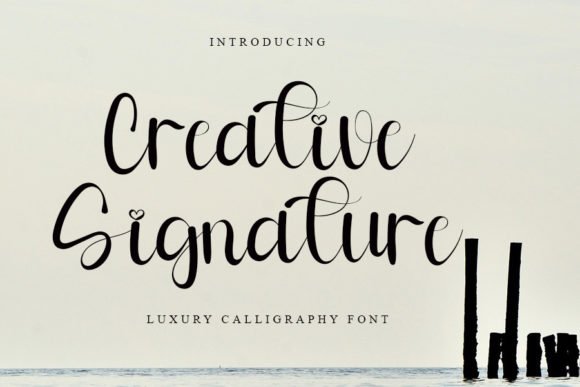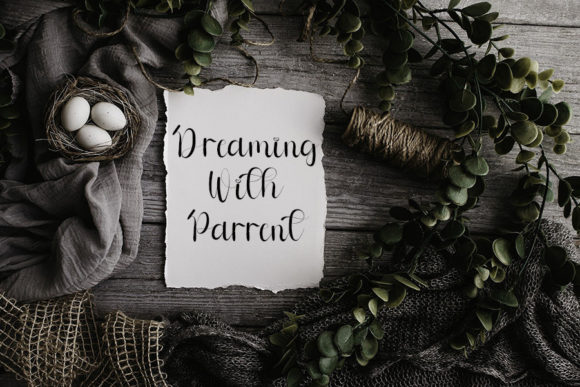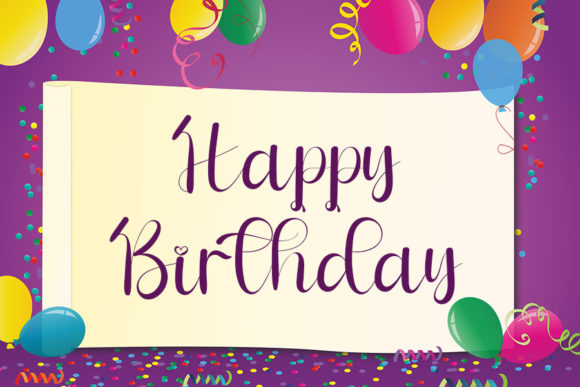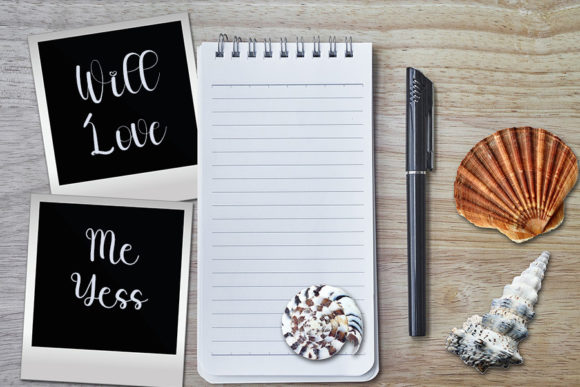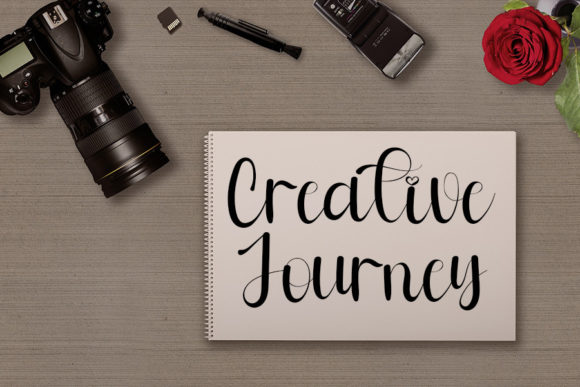
Unlock the Power of Personal Style with the Creative Signature Font
Have you ever found yourself staring at a blank page, struggling to bring your creative vision to life? The blank canvas can be daunting, but what if you had the perfect tool to help you express yourself? That’s where the Creative Signature Font comes in – a classic script font that’s about to become your new best friend.
This timeless font is designed to add a touch of elegance and sophistication to any project. Whether you’re a seasoned designer or just starting out, the Creative Signature Font is an incredible asset to have in your toolkit. Its versatility makes it perfect for branding, typography, and even handwritten text. With this font, you’ll be able to elevate your creations and leave a lasting impression on your audience.
Creative Signature Font Key Features
- Unique Characteristics: The font features a unique blend of hand-drawn and digital elements, giving it a distinctive and creative feel.
- Stylistic Sets: The font includes 5 stylistic sets that allow for further customization and variation.
Designer Review: Creative Signature Font
At first glance, the Creative Signature Font seems like a promising addition to any design project. ✨ The font’s unique and playful style is sure to grab attention, making it perfect for creative agencies, marketing materials, and even personal branding projects. ✨ The font’s ligatures and swashes add a touch of elegance, while the varied weights and styles provide versatility for different design applications.
- Works well for headings and titles due to its large x-height and bold strokes.
- Great for creating a sense of movement and energy with its fluid, handwritten feel.
- Perfect for adding a touch of sophistication with its ligatures and swashes.
However, there are some limitations to consider. ⚠️ The font may be too ornate for certain design applications, such as body text or technical documentation. Additionally, the font’s size may become overwhelming if not used judiciously. ⚠️ It’s also worth noting that the font may not be suitable for readers with dyslexia due to its irregular letterforms.
Overall, I would recommend the Creative Signature Font for designers looking to add a touch of creativity and personality to their projects. However, it’s essential to use it thoughtfully and consider the potential limitations before making it a staple in your design arsenal.
Tips for Getting the Most Out of Your Creative Signature Font
Experiment with different font sizes, colors, and styles to match your brand identity. Use your Creative Signature Font consistently across all your marketing materials for a cohesive look. Consider pairing your font with a complementary font for added visual interest.
Use your Creative Signature Font on business cards, letterheads, and email signatures to establish a professional brand image. Apply it to social media graphics, website headers, and blog posts to create a consistent visual identity.